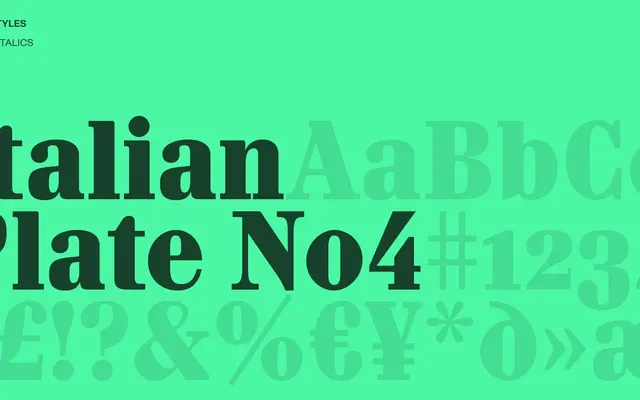
Italian Plate No4
A European grotesque from Playtype, named with the numbered plate convention of Italian industrial lettering traditions.
Italian Plate No4 draws on the utilitarian lettering conventions of early European grotesques, presenting a clean monolinear character suited to both display and editorial contexts. The name evokes Italian industrial plate lettering, suggesting a functional aesthetic with a degree of historical reference. The page offers very little detail on the full family scope, weights or language coverage.
Italian Plate No4 follows the visual conventions of early European grotesque typefaces, with the utilitarian character and monolinear stroke weight typical of the genre.